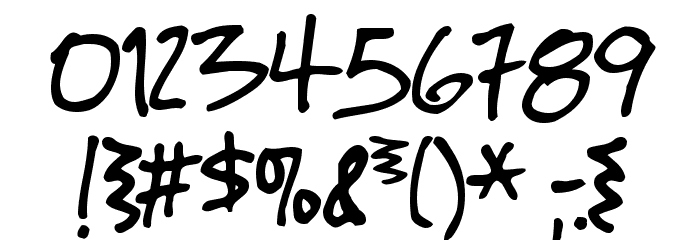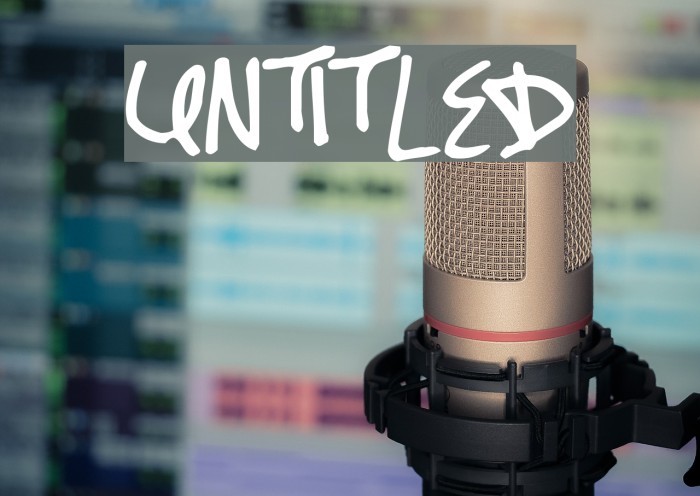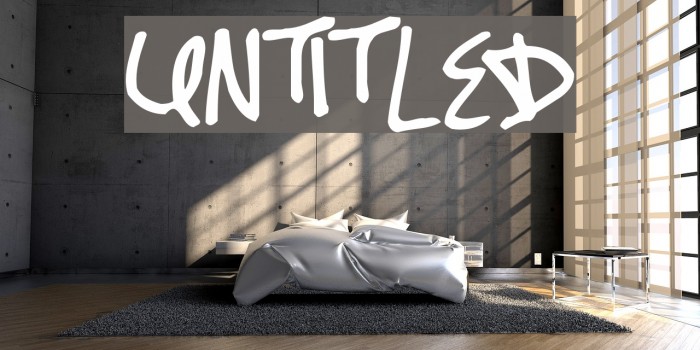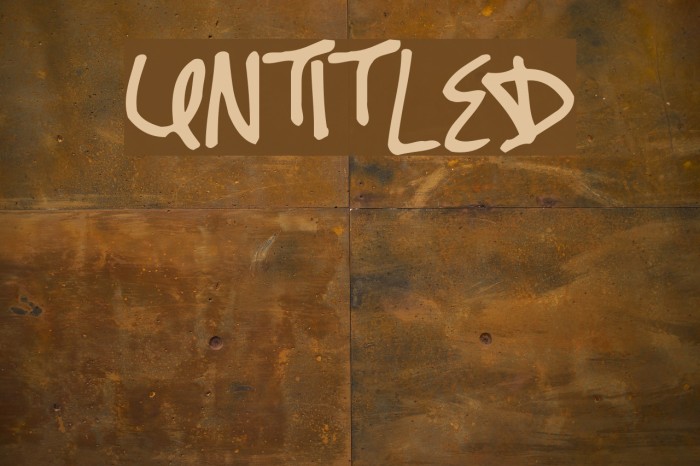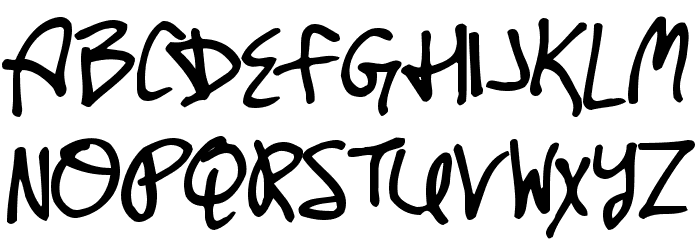
Untitled Font
This font features a bold, handwritten style with a playful and energetic appearance. The letters are characterized by their irregular, freeform shapes, giving them a casual and informal look. The strokes are thick and consistent, contributing to a strong visual presence. The uppercase and lowercase letters maintain a cohesive style, with rounded edges and varying line thicknesses that add to the dynamic feel. The numbers and special characters follow the same design principles, ensuring uniformity across all elements. This font is ideal for projects that require a personal touch or a sense of spontaneity.
A bold, handwritten font with a playful and energetic style from Quirky fonts.
- Proposed Projects: Ideal for greeting cards, posters, social media graphics, and branding projects that require a personal touch.
- Overall Style: Casual, Playful
- Use Case: Headlines, Logos, Informal Text